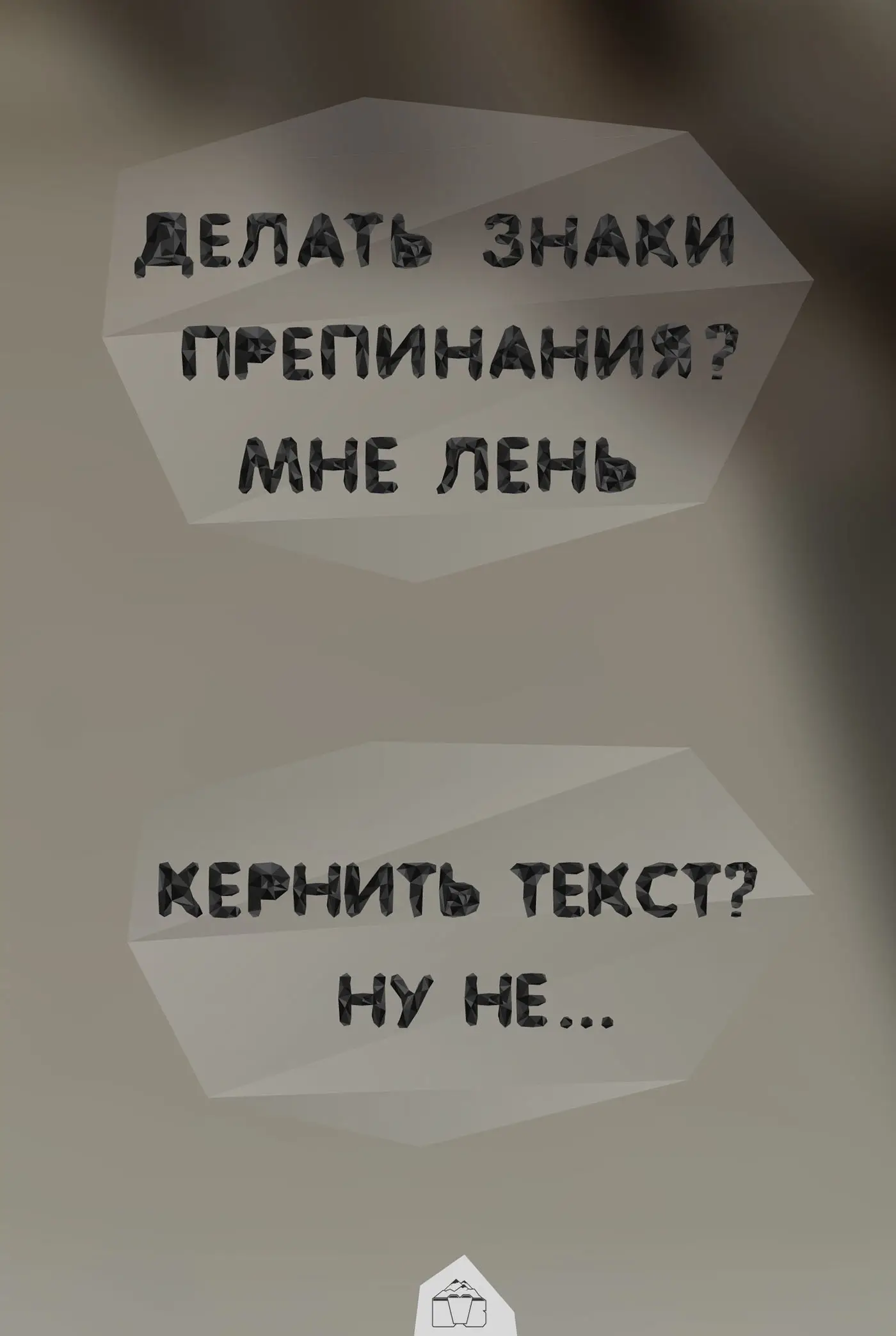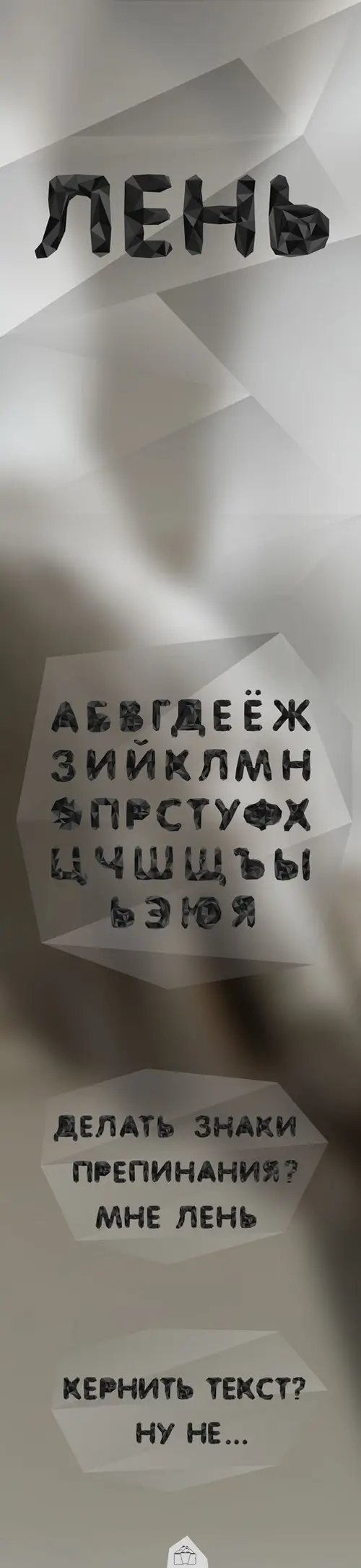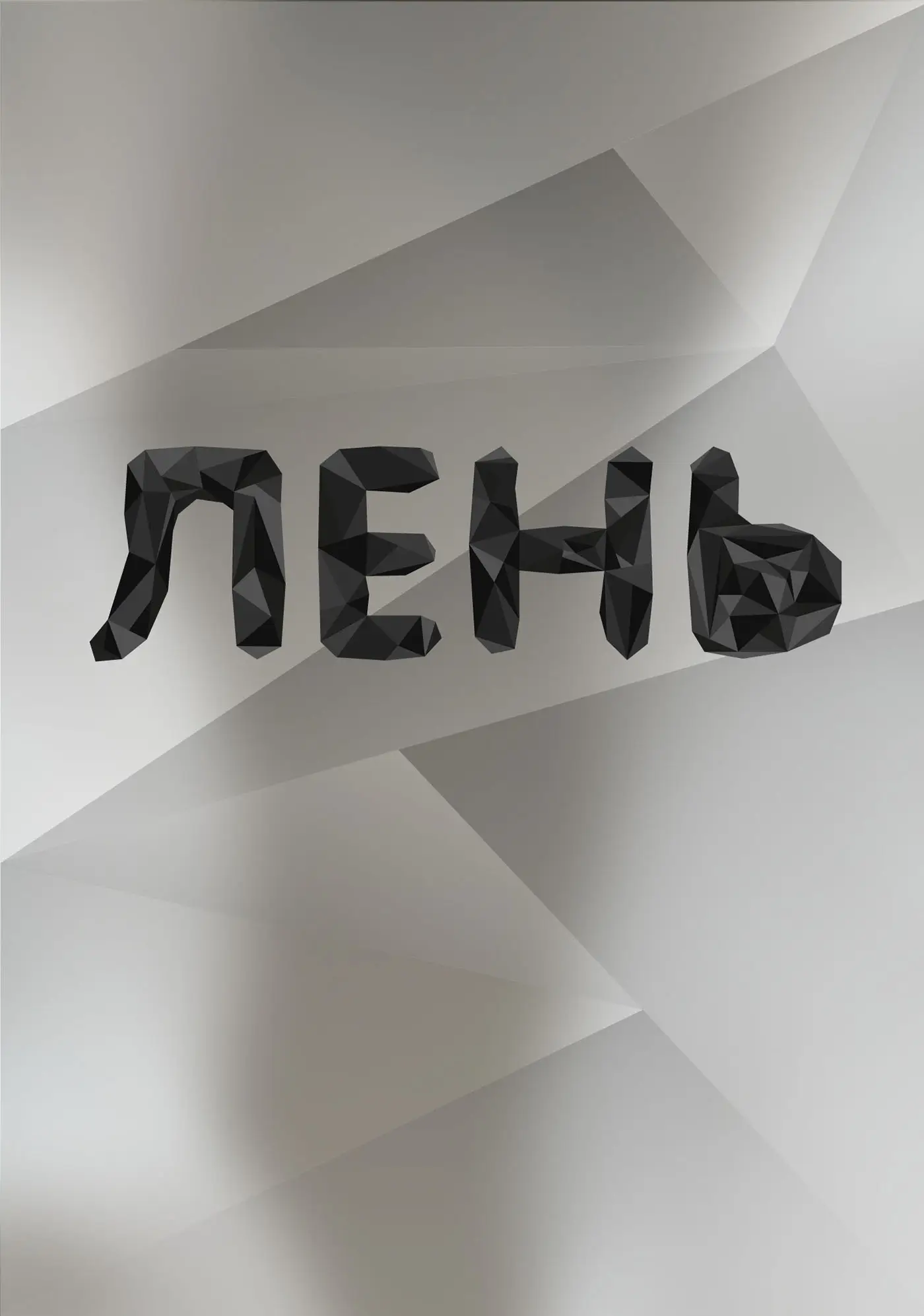
Лень Typeface
Introducing the Лень Typeface, a unique and versatile font designed to bring a touch of creativity to your projects. This typeface features a modern aesthetic with a blend of elegance and readability, making it suitable for various applications.
• Multiple weights for diverse usage
• Uppercase and lowercase letters included
This typeface is ideal for branding, logos, print materials, and web design. Use it to create eye-catching headlines or elegant body text that stands out.